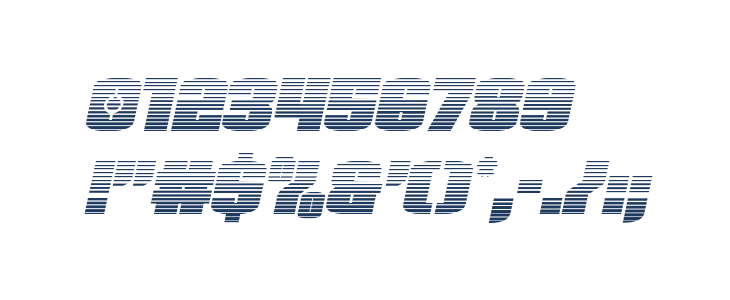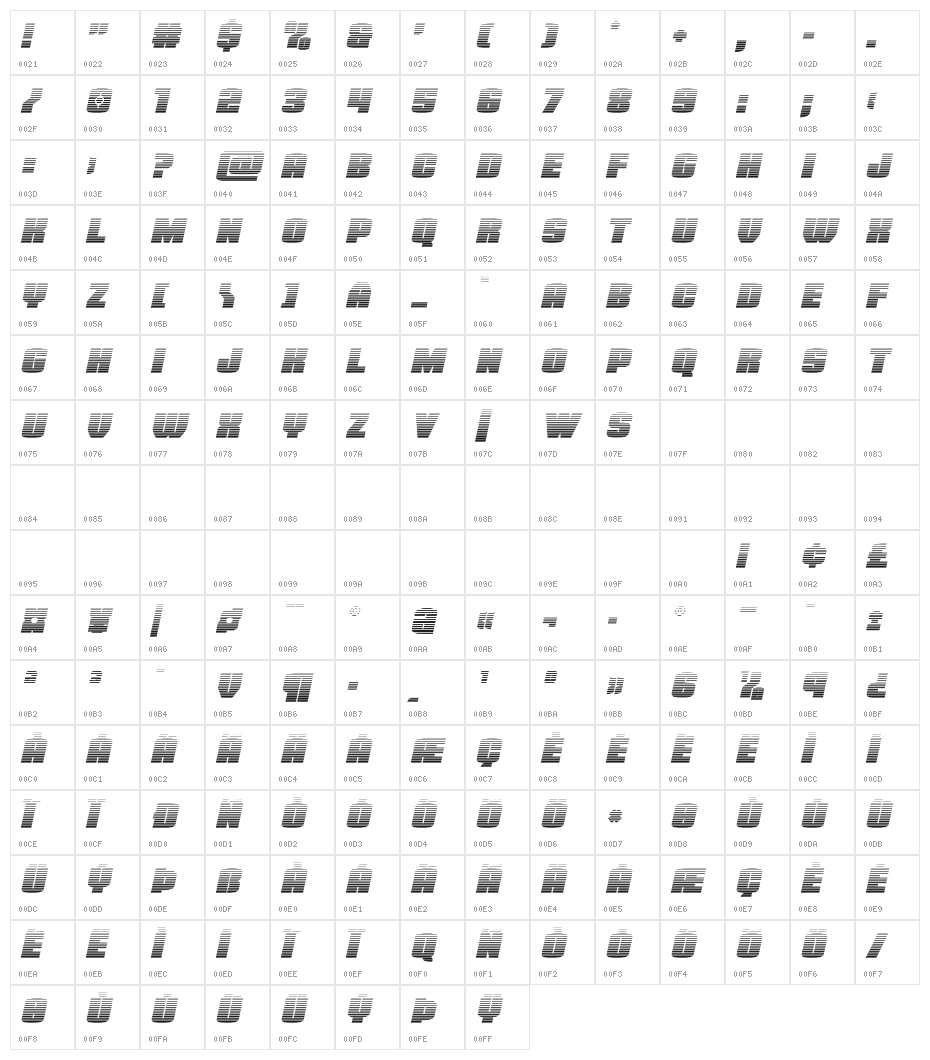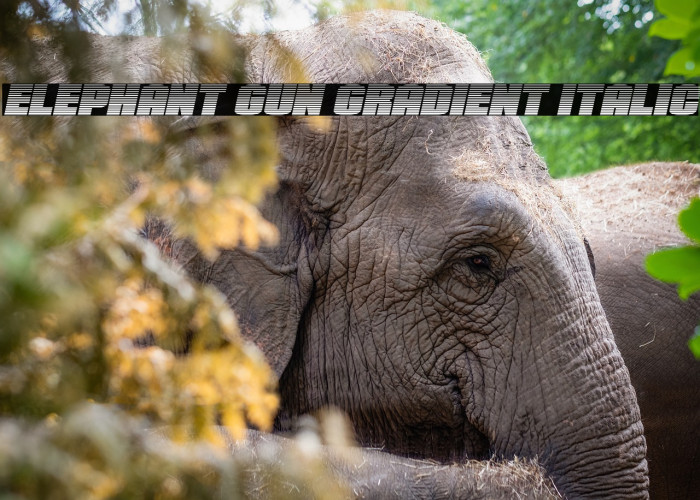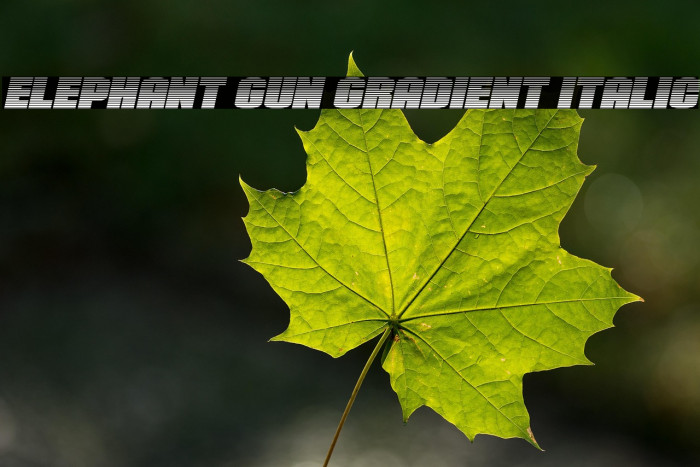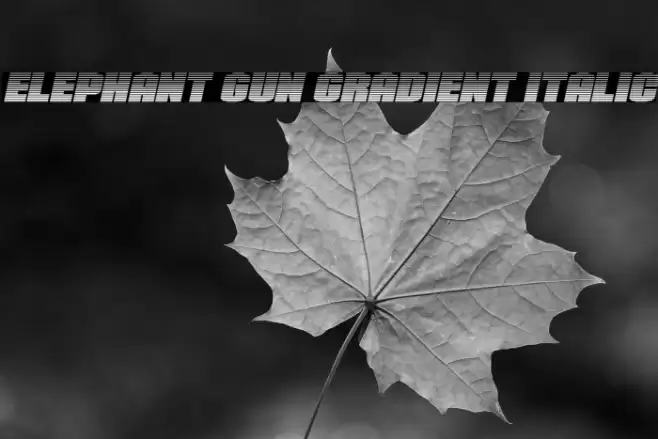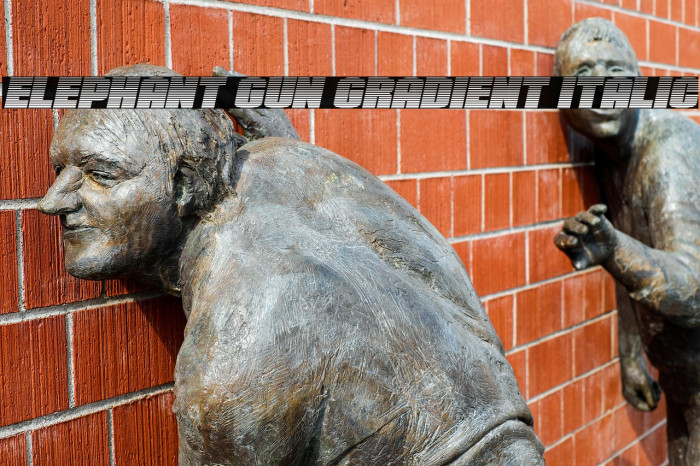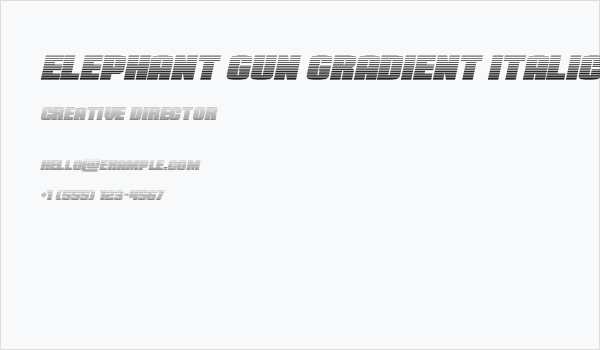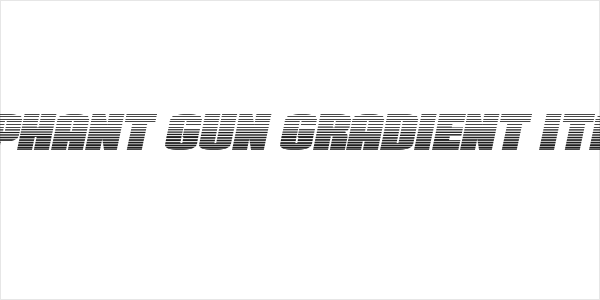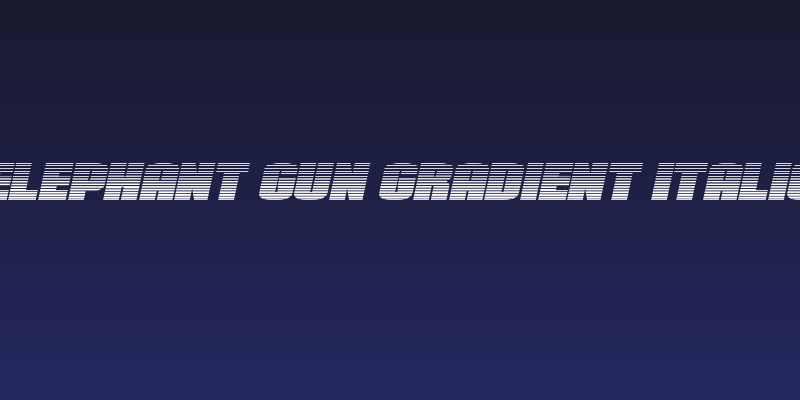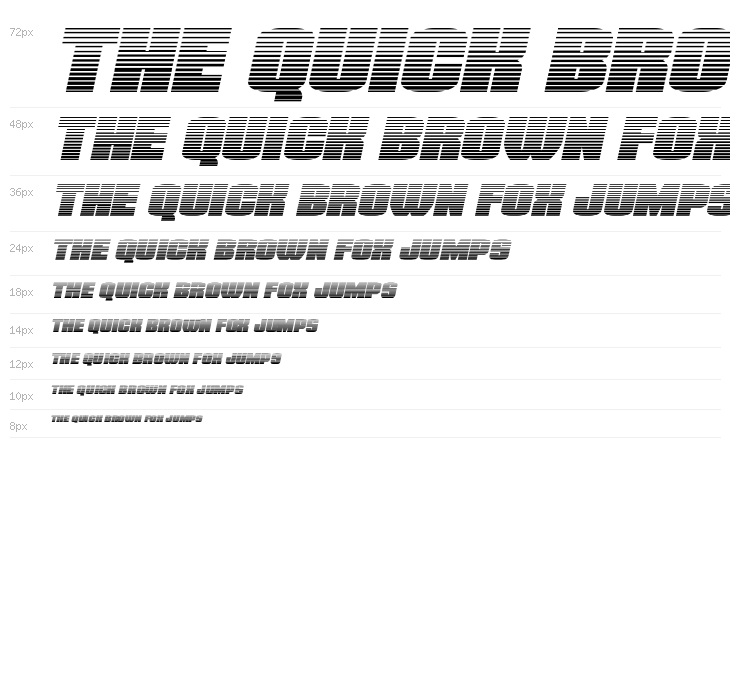
Elephant Gun Gradient Italic Font
Elephant Gun Gradient Italic Description
This font features a bold, italicized style with a unique gradient effect that gives each character a dynamic and energetic appearance. The letters are constructed with horizontal lines that create a sense of movement and depth, making it stand out as a display font. The uppercase and lowercase letters maintain a consistent width, while the numbers and special characters follow the same design principles, ensuring uniformity across the typeface. The bold strokes and italic slant contribute to its modern and edgy aesthetic, making it suitable for eye-catching designs.
| Proposed Projects | Ideal for posters, logos, and branding materials that require a striking and modern look. |